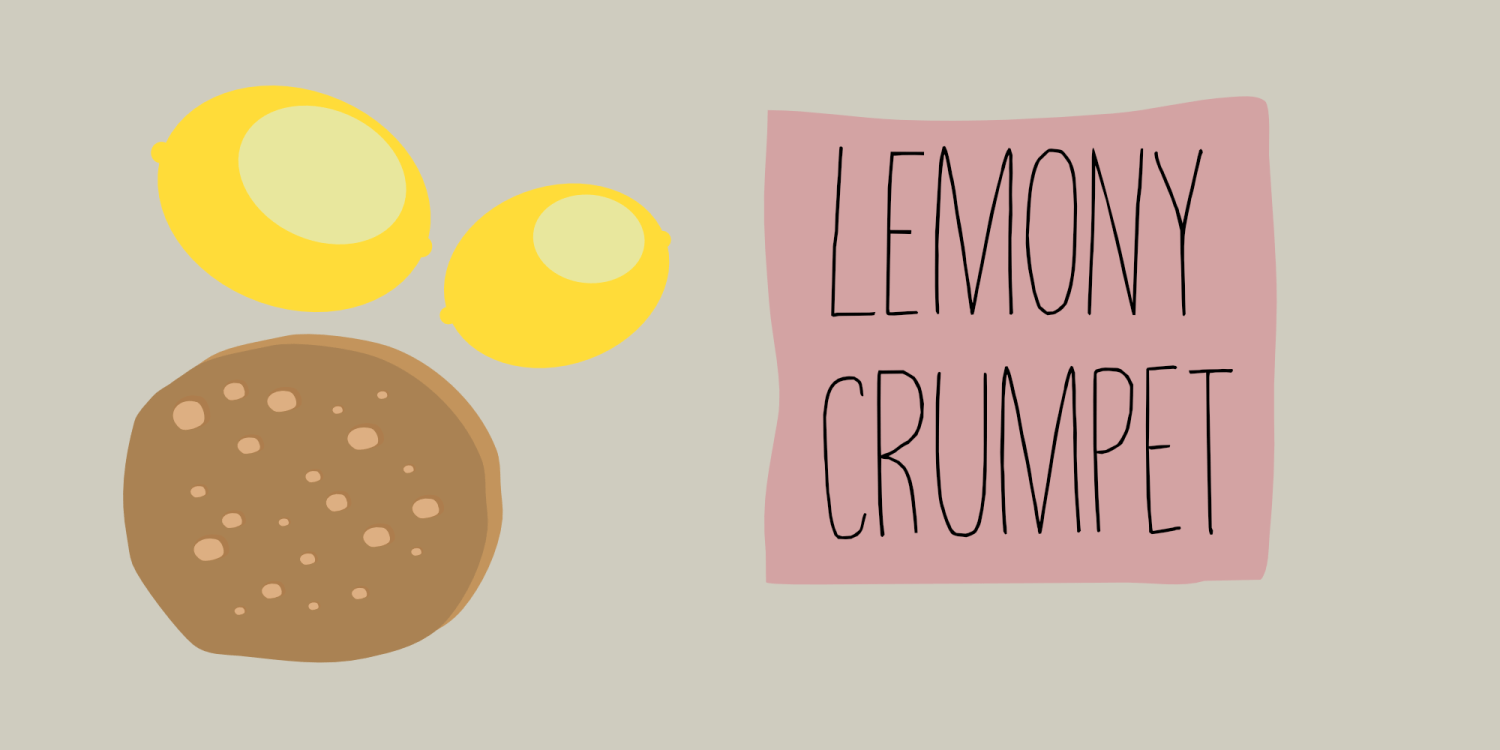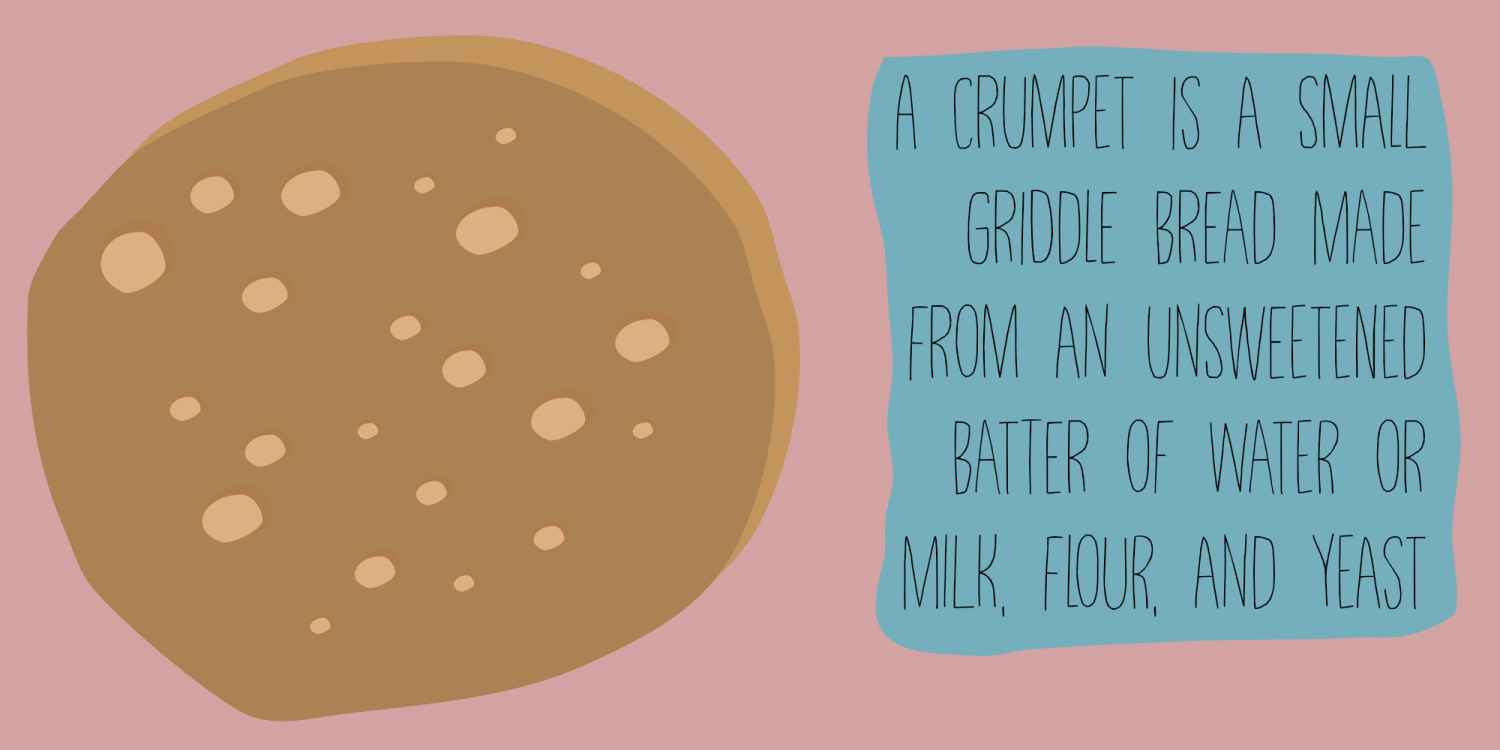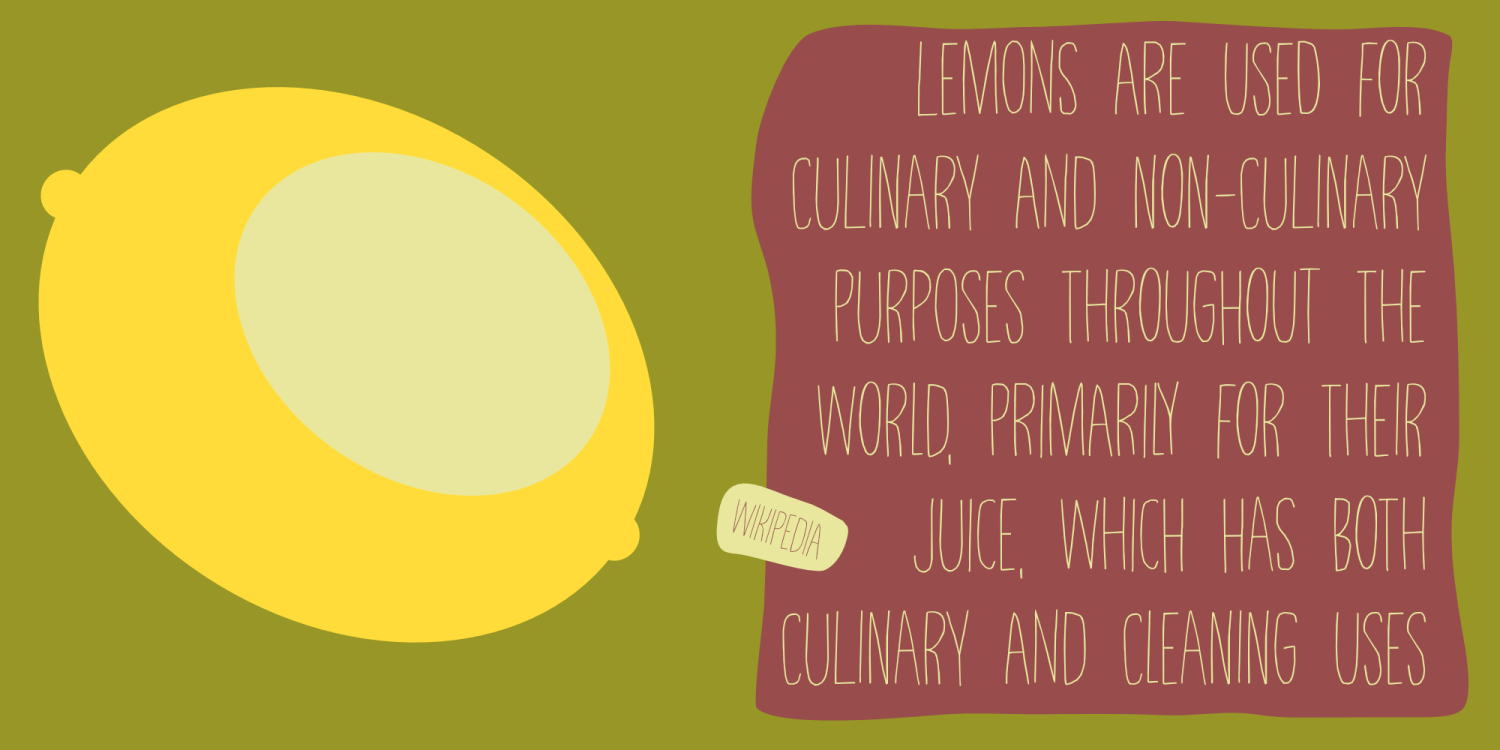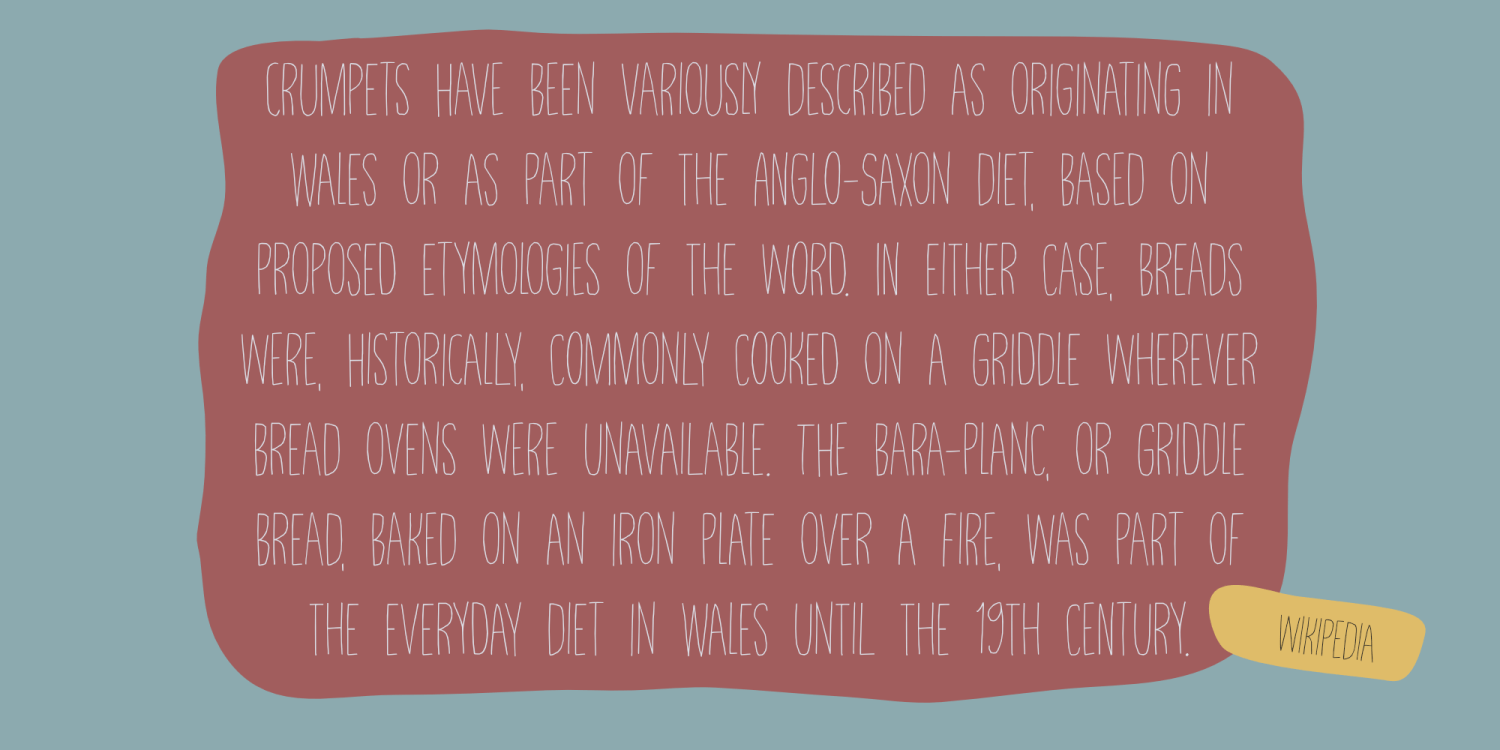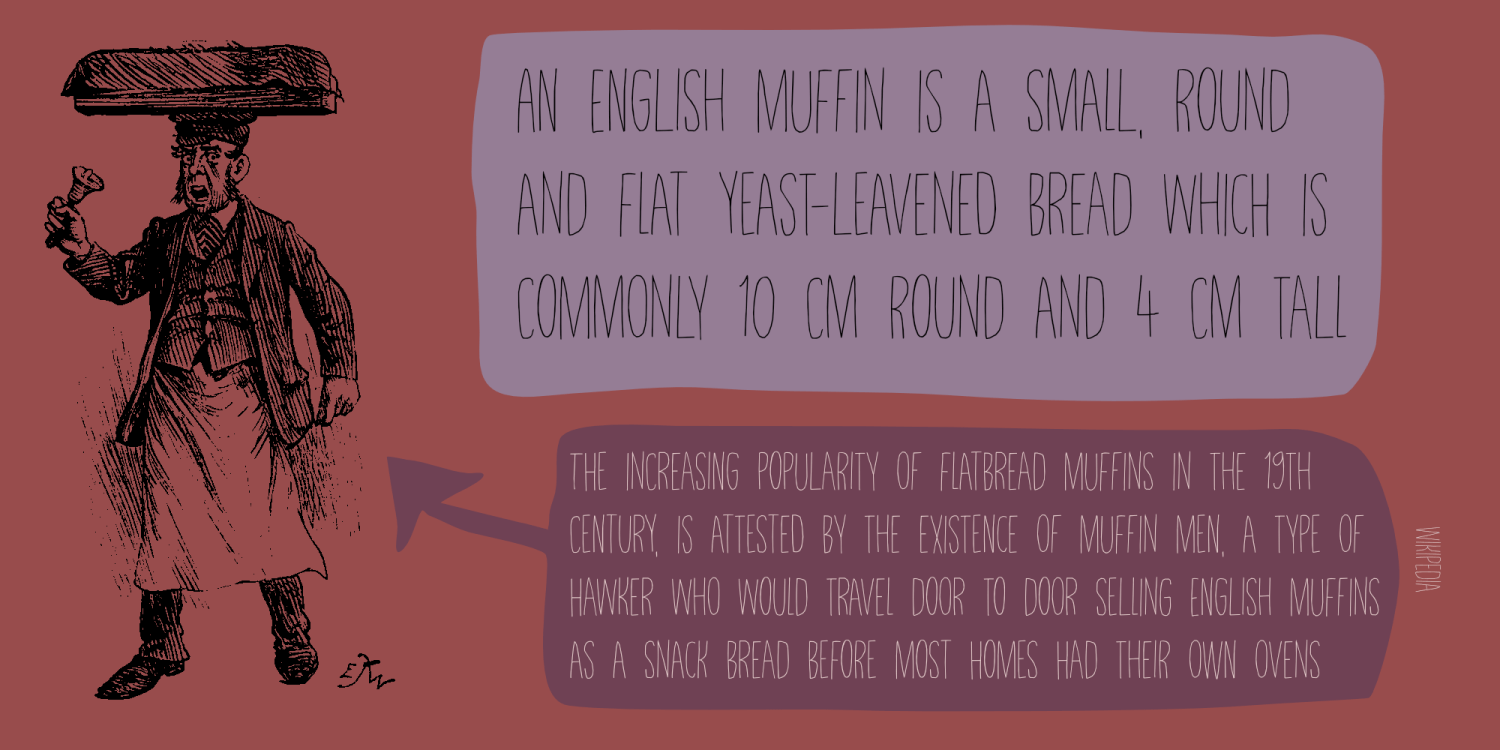
Lemony Crumpet
A crumpet is a small griddle bread, mostly enjoyed in the UK, North America, Australia and New Zealand.
I have never had one, but I have heard of them and I like the name - which is probably Welsh in origin.
Lemony Crumpet is a whimsical, handmade font. It is tall & thin, shaky and jumpy and I wouldn’t use it as a poster font because of its delicate properties,  but it would look fantastic on book covers, product packaging and websites.  Comes with extensive language support and a set of alternates for the lower case letters.
Lemony Crumpet by Hanoded